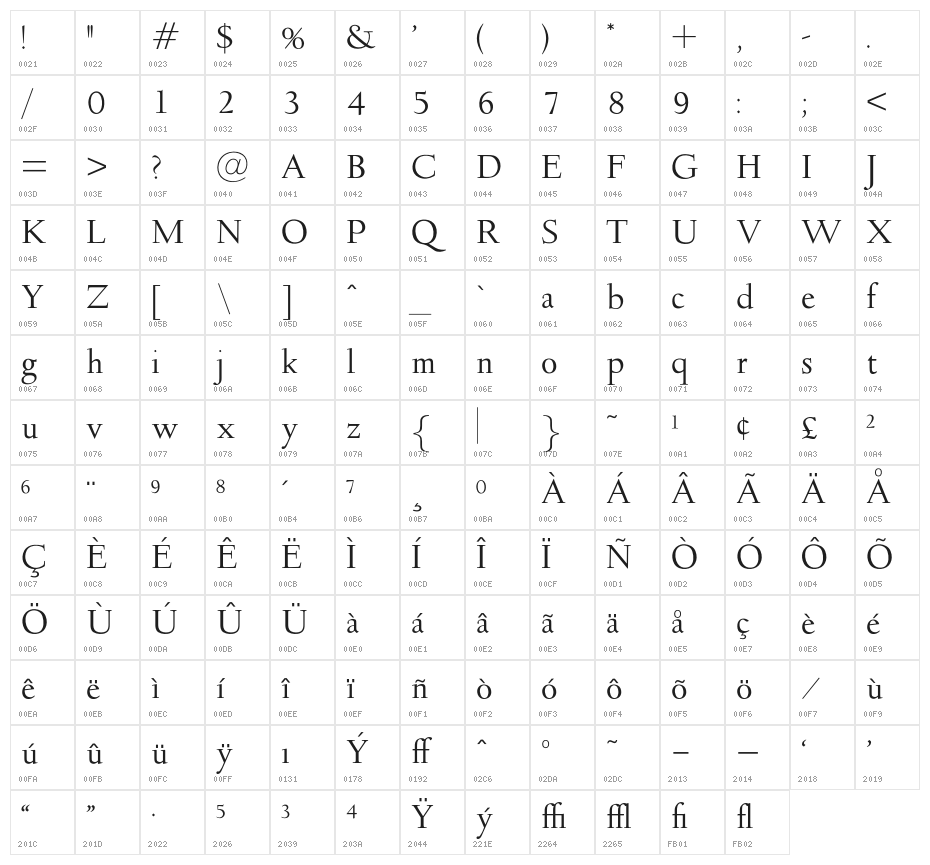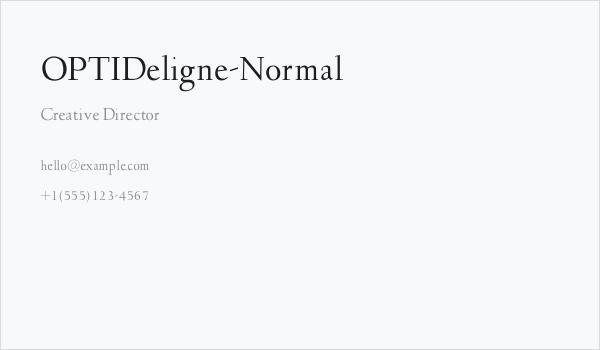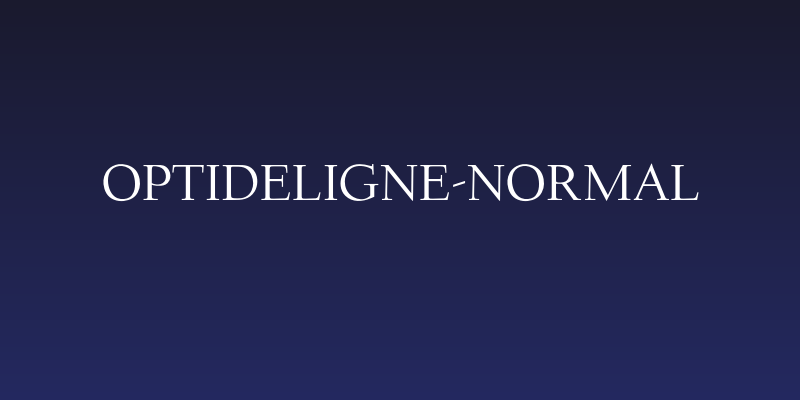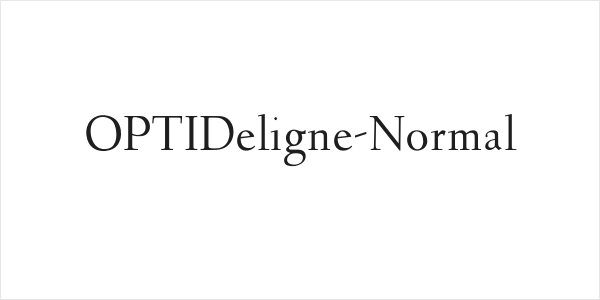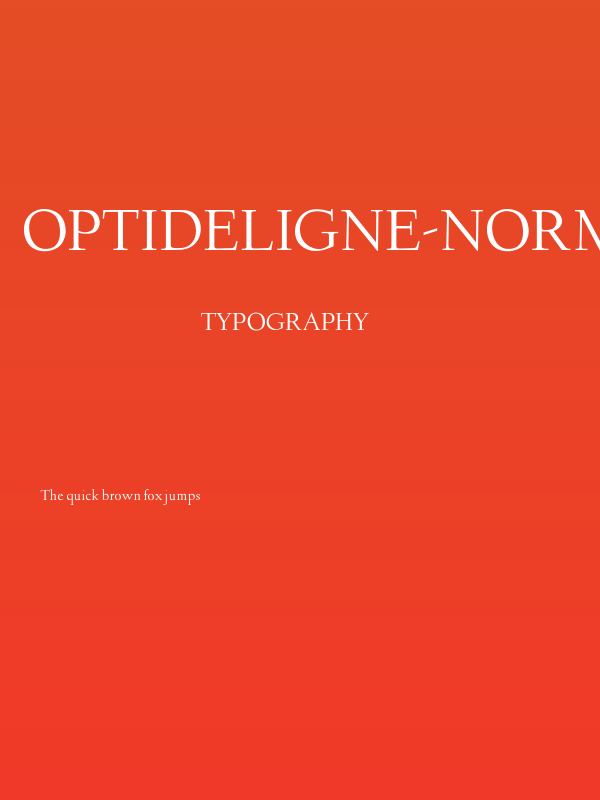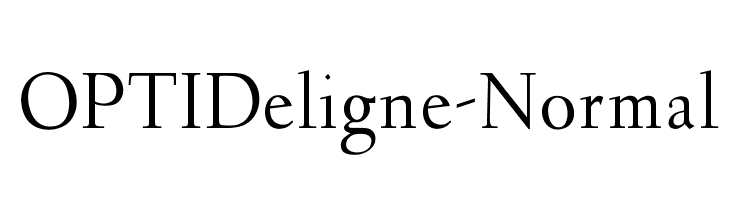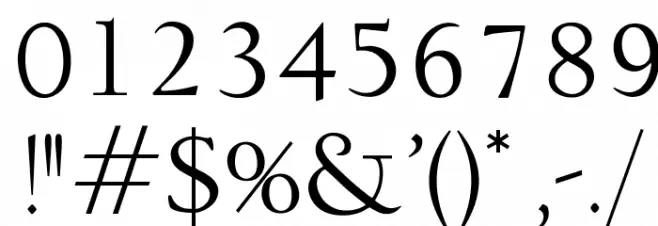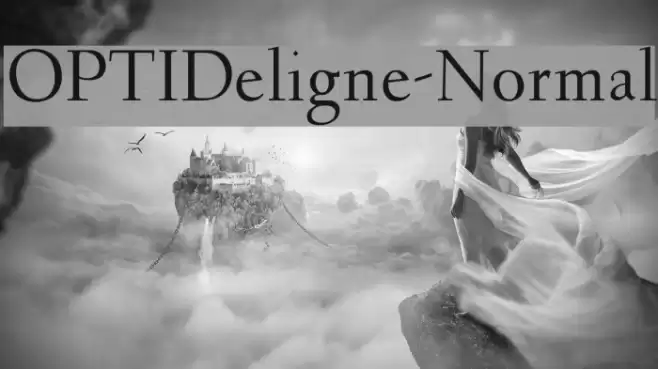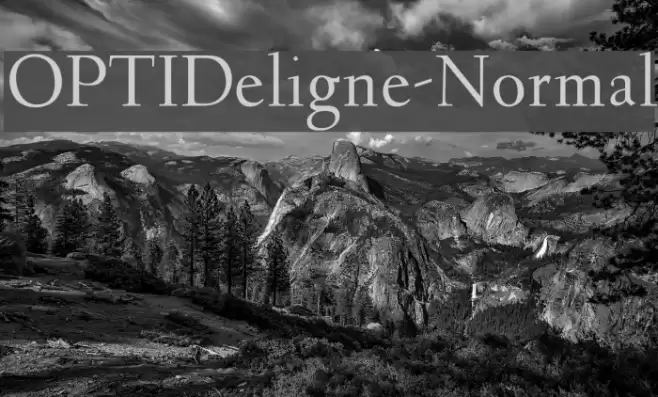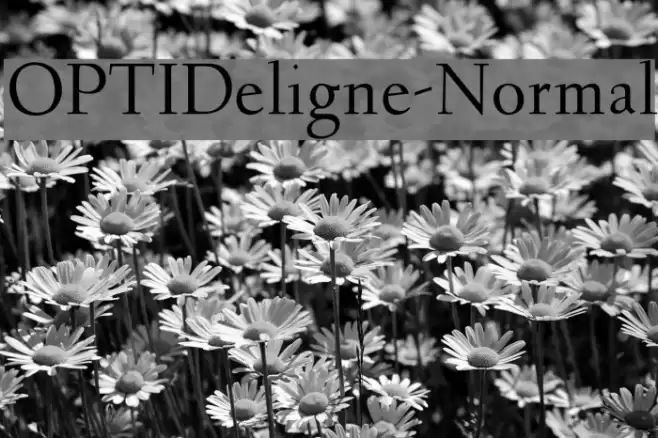
OPTIDeligne-Normal Font
✎ Serif
OPTIDeligne-Normal Description
This font exhibits a classic serif style with elegant and refined strokes. The uppercase letters are well-proportioned, featuring subtle serifs that enhance readability and add a touch of sophistication. The lowercase letters maintain a consistent design, with smooth curves and balanced proportions. The numerals are clear and distinct, making them suitable for both text and display purposes. Special characters are thoughtfully designed, maintaining the overall aesthetic of the typeface. This font is versatile, suitable for a range of applications from formal documents to creative projects.
| Overall Style | Classic |
| Use Case | Headlines, Body text, Logos |
| Proposed Projects | Ideal for book covers, editorial design, formal invitations, and branding projects. |